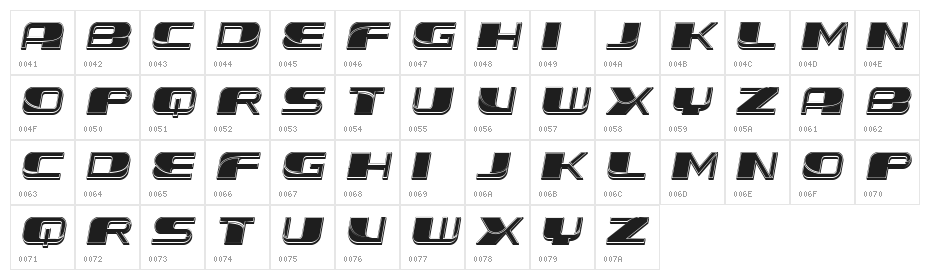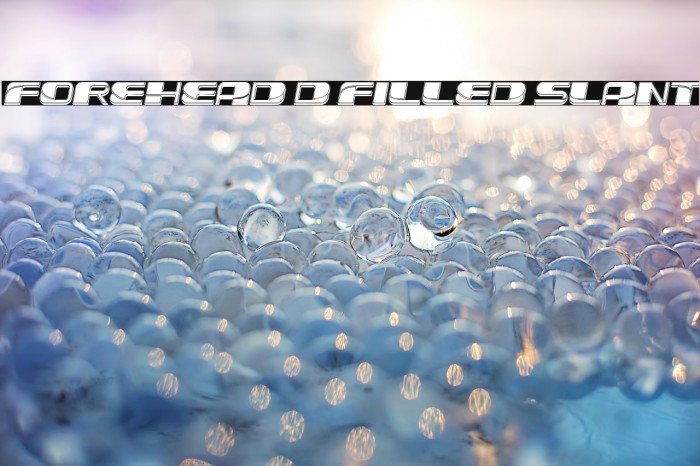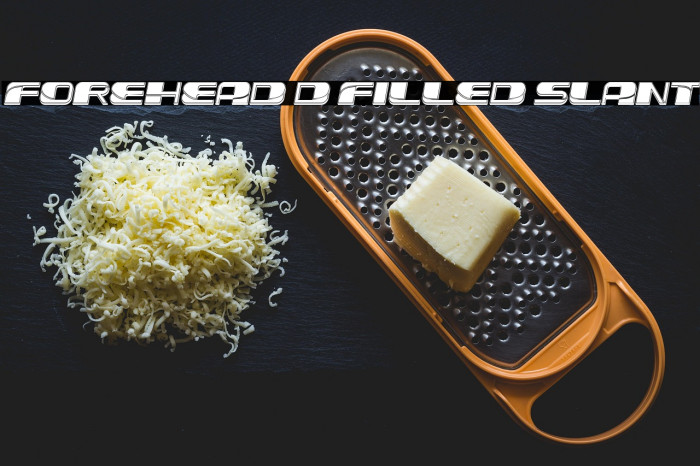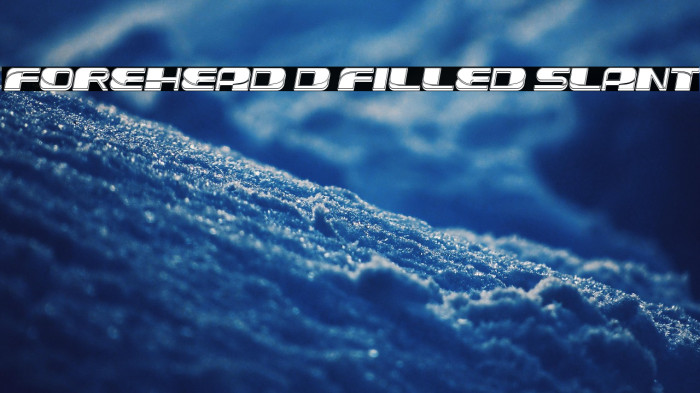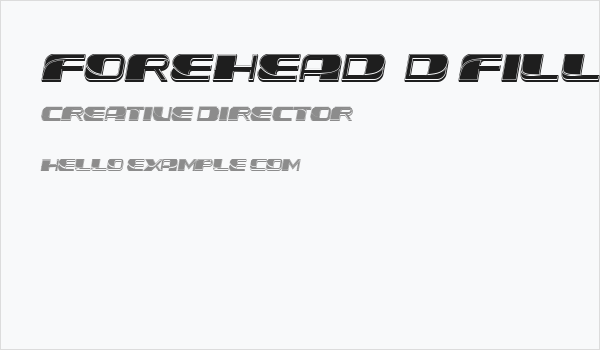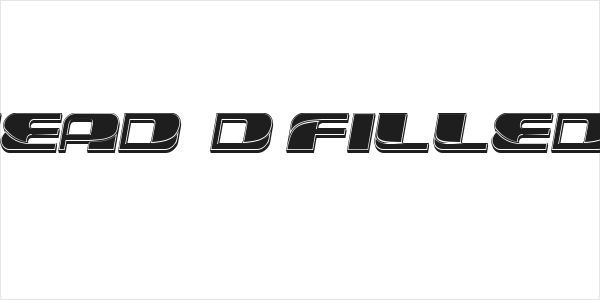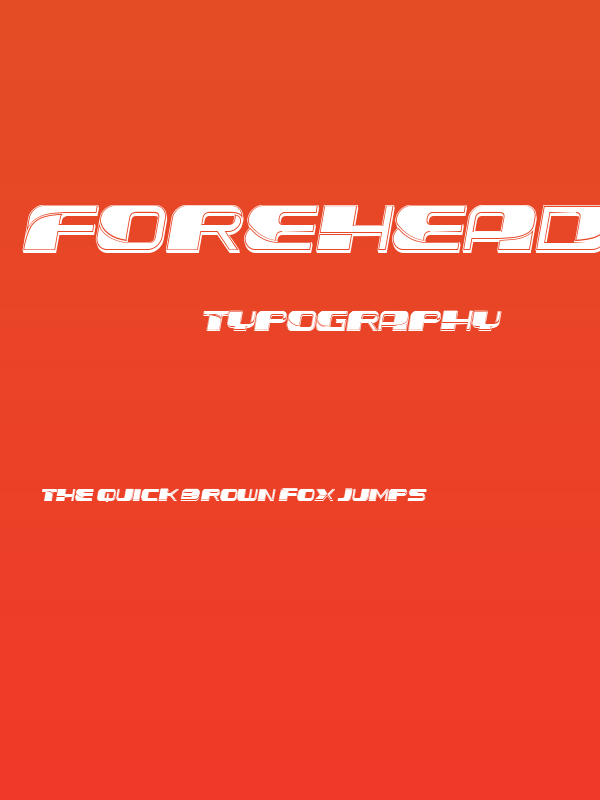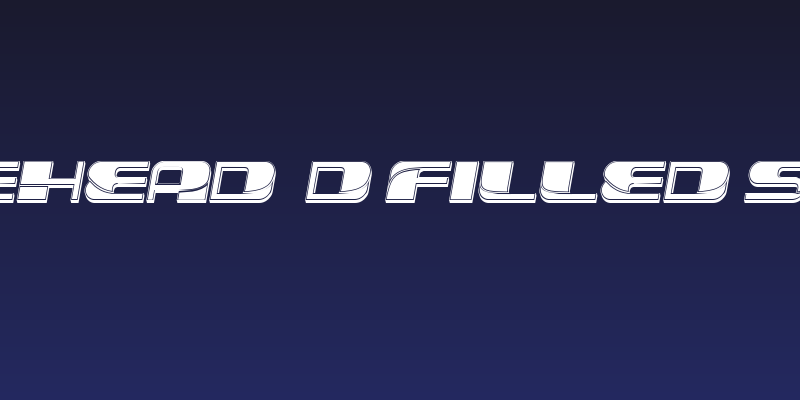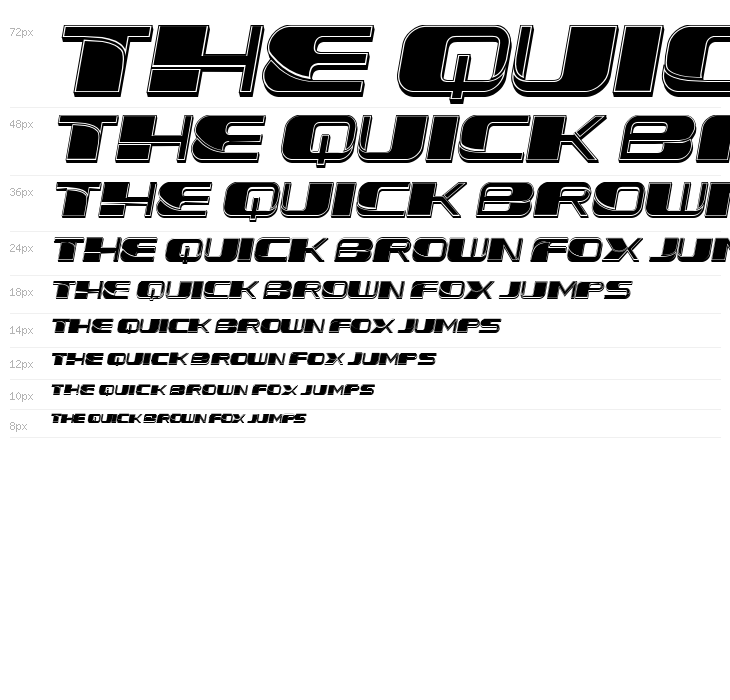
Forehead 3D Filled Slant Font
Forehead 3D Filled Slant Description
This font features a bold, futuristic design with a 3D effect that gives it a dynamic and modern appearance. The letters are slanted, adding a sense of motion and energy. Each character is filled, with a distinct shadow that enhances the three-dimensional look. The style is consistent across uppercase and lowercase letters, as well as numbers and special characters, maintaining a cohesive visual theme. The font's unique design makes it stand out, suitable for projects that require a strong and impactful visual presence.
| Proposed Projects | Ideal for sci-fi themed designs, video game titles, tech company logos, and modern advertising campaigns. |